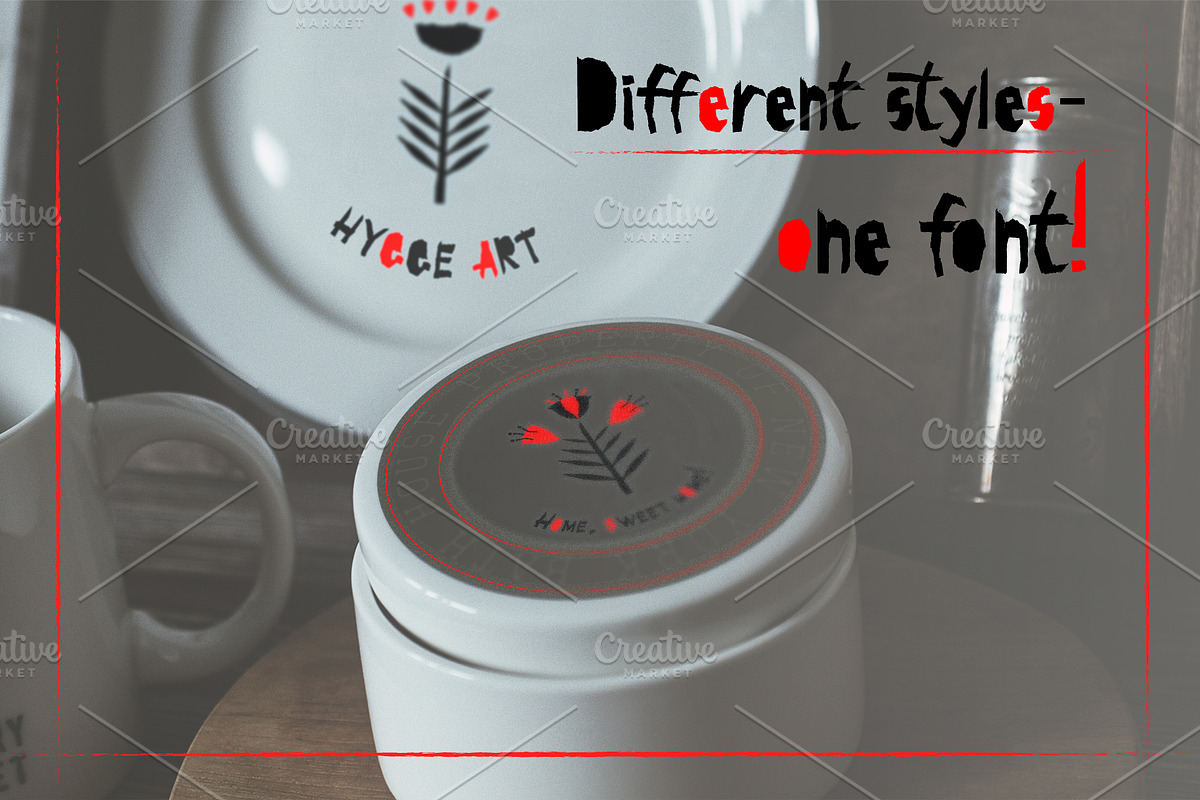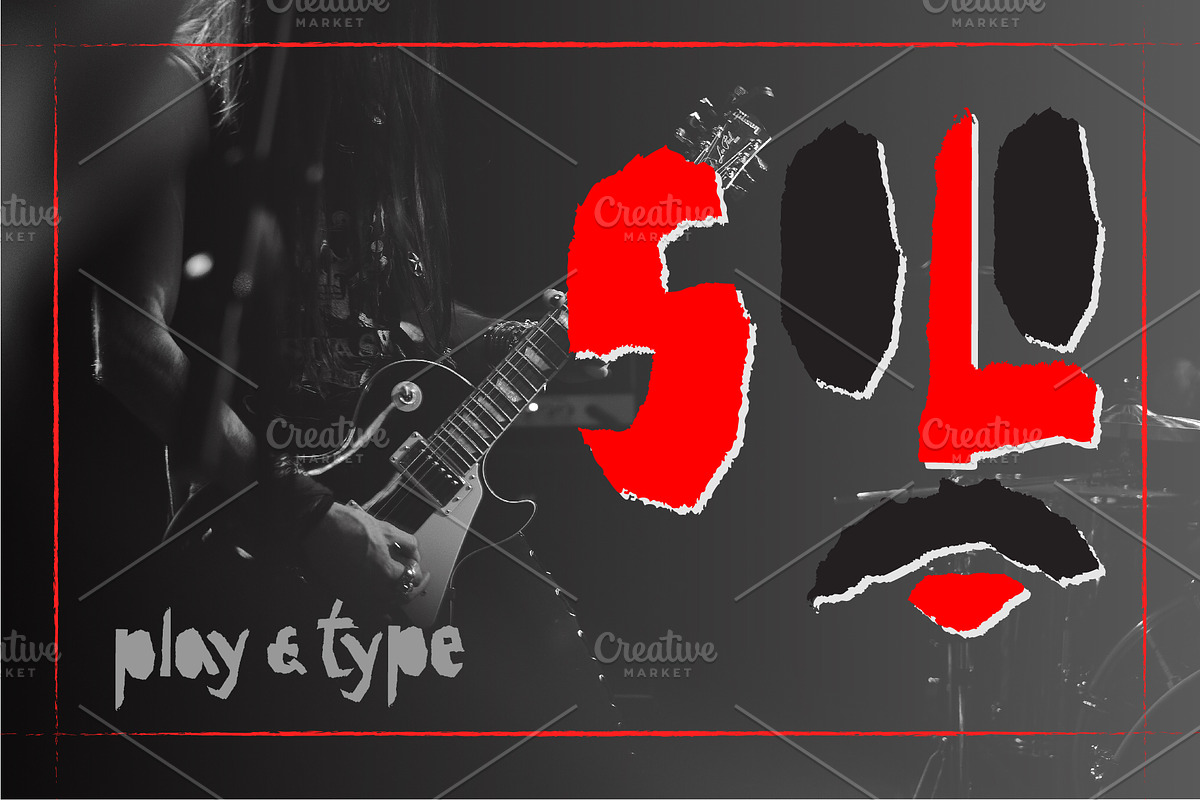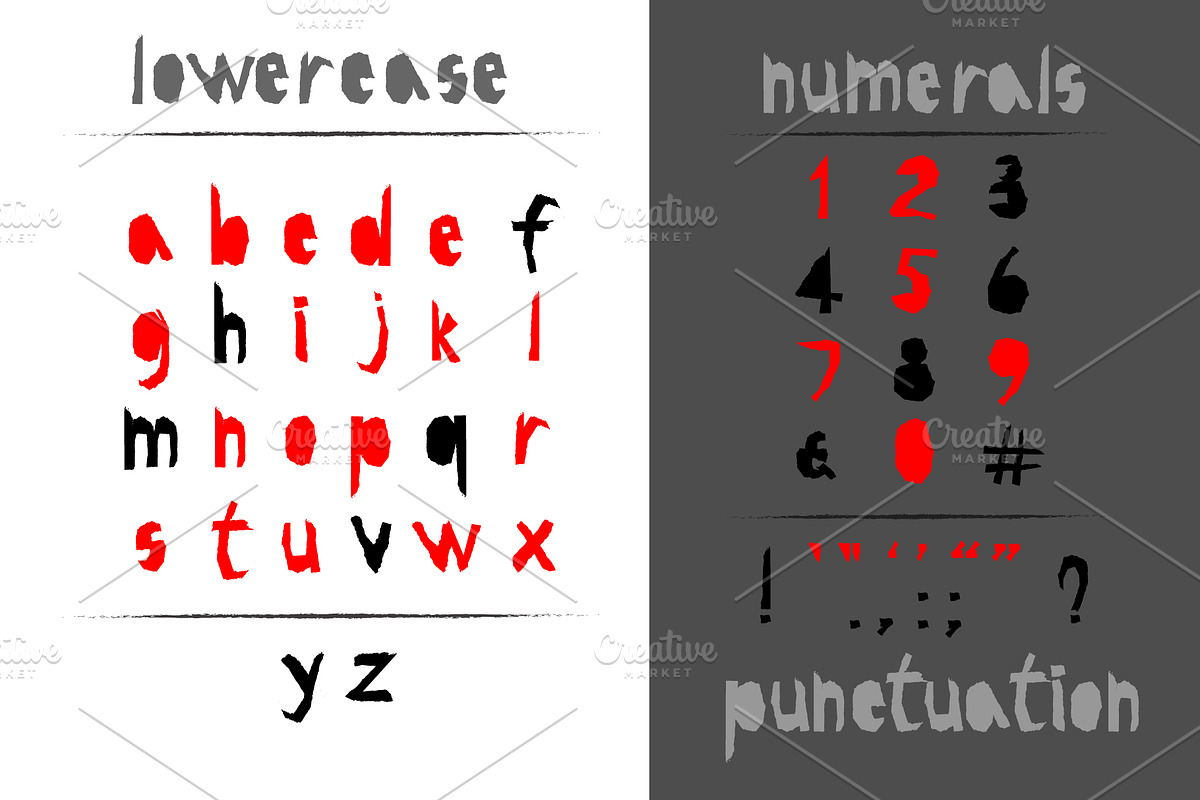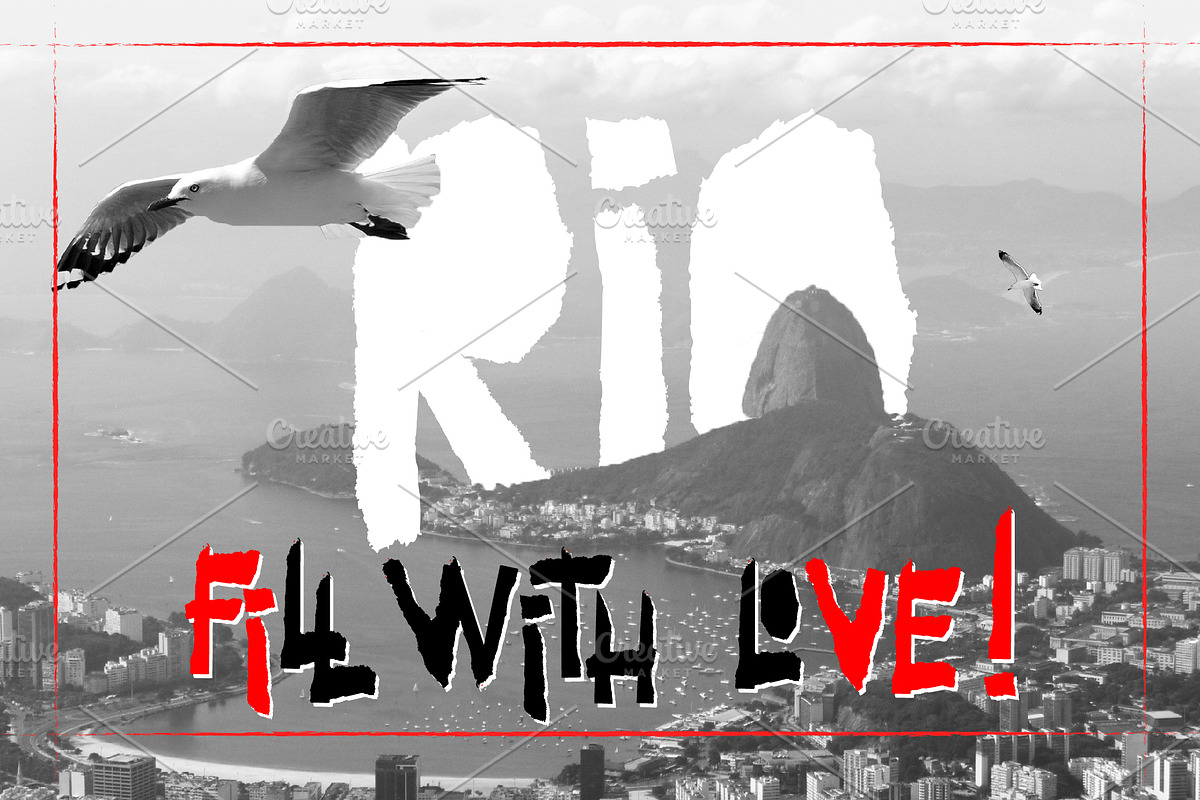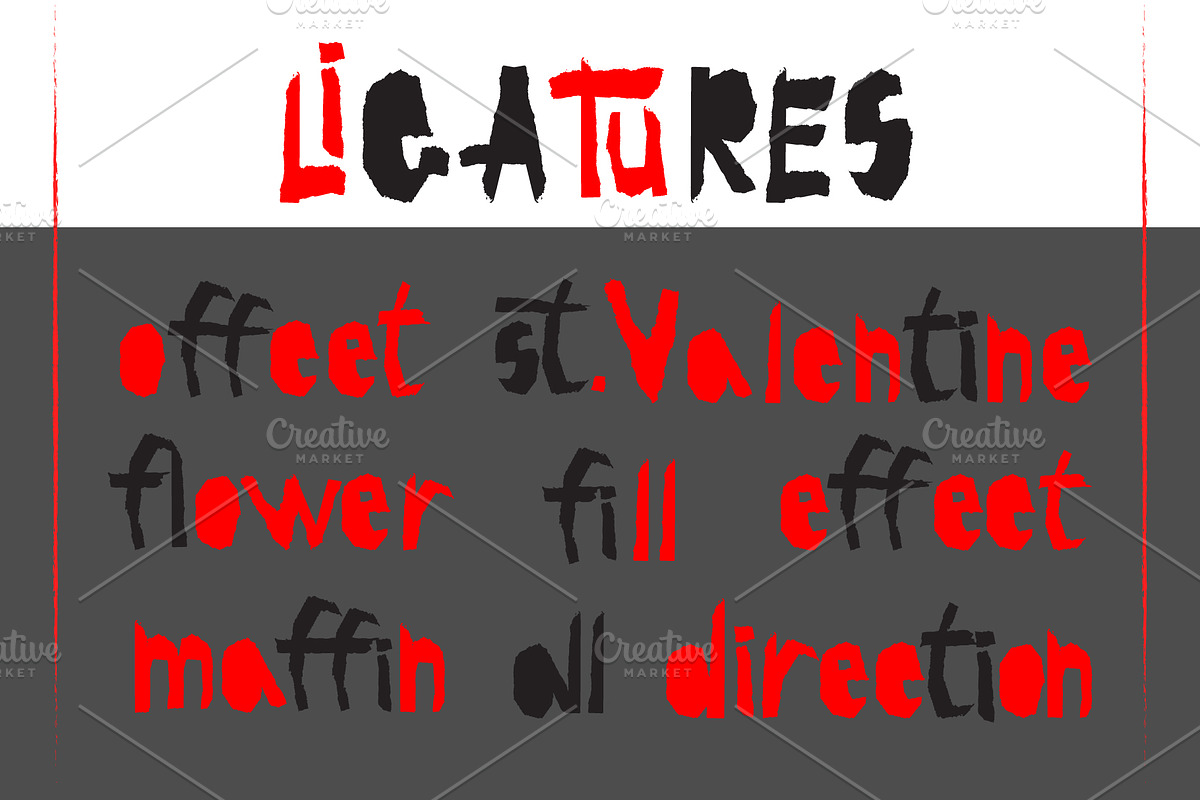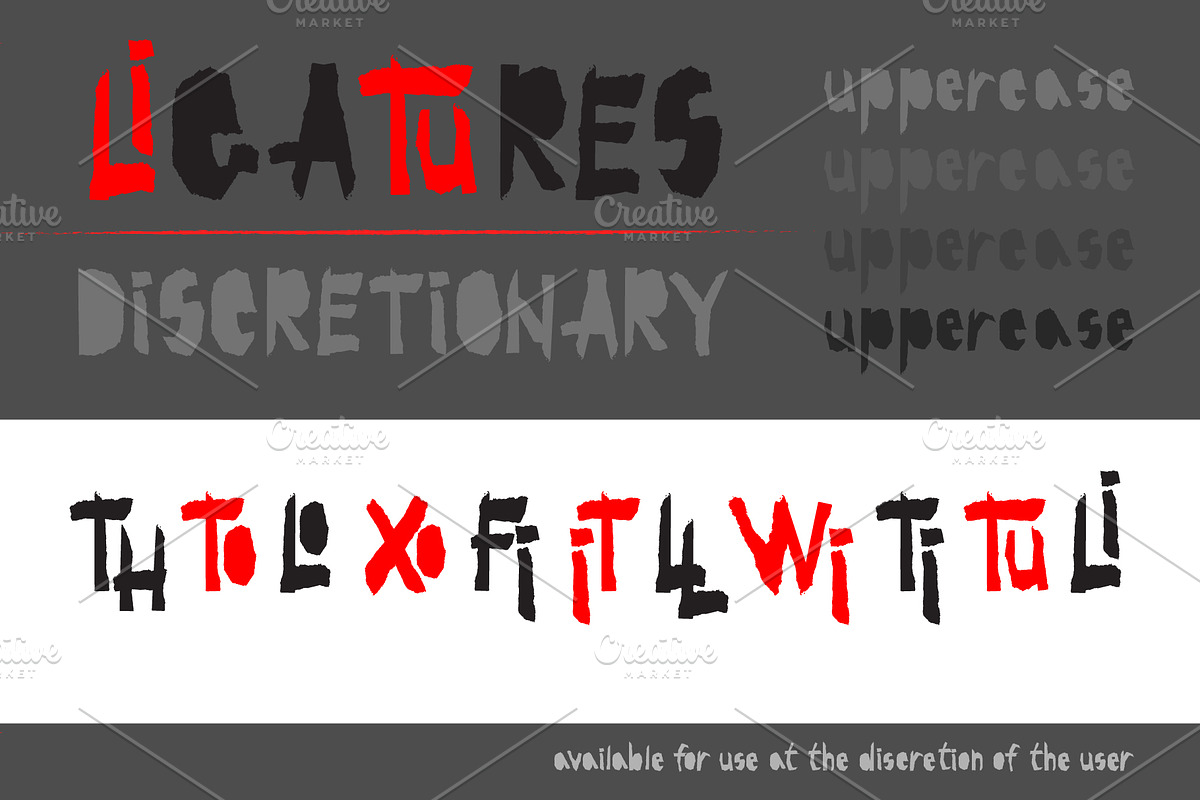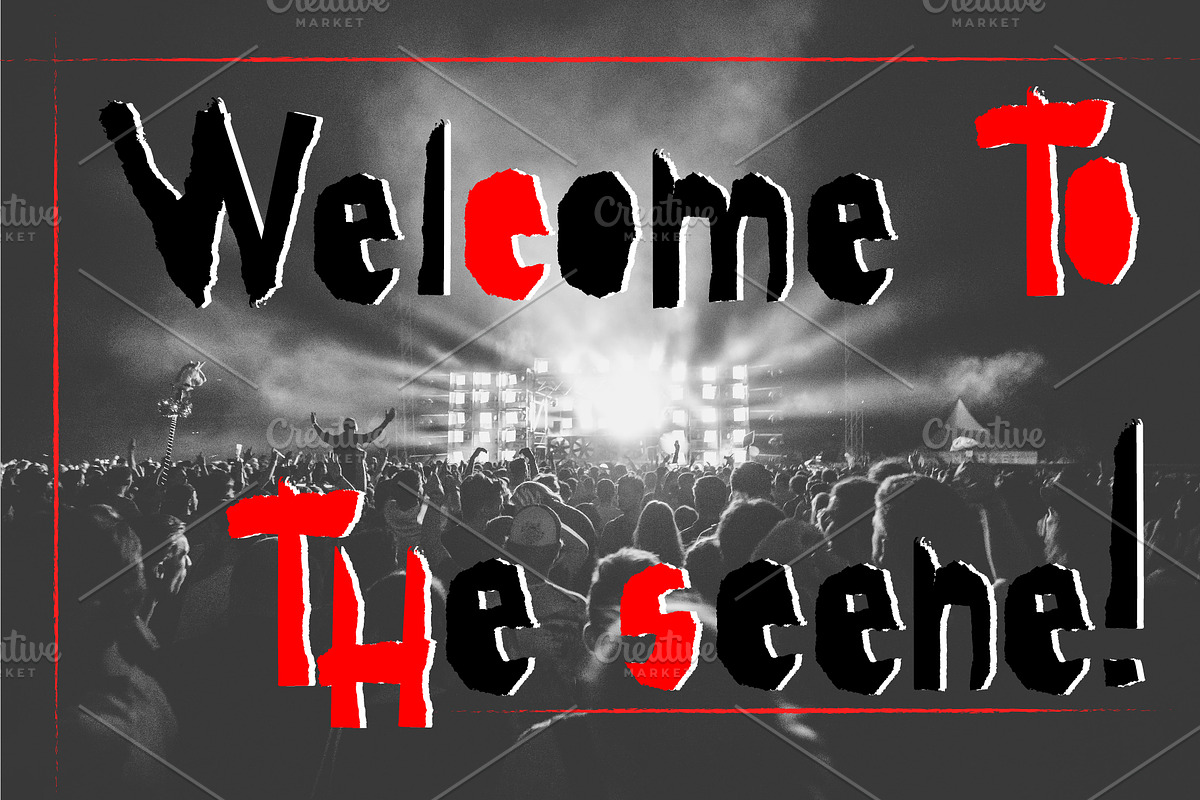
Red-and- Black font
Red-and- Black OTF font. Modern display grotesque sans-serif font. You can use this font for design logos, quotes prints on t-shirts, children posters and love cards and… other.
OpenType Font was designed with Fontself Maker in Illustrator CC. Contains CAPITALS & STRINGS letters, NUMERALS & DIGITS, PUNCTUATION, LIGATURES.
Why Red-and- Black font is worth a look
Red-and- Black font by Zimages fits naturally into Branding, posters, packaging, typography.